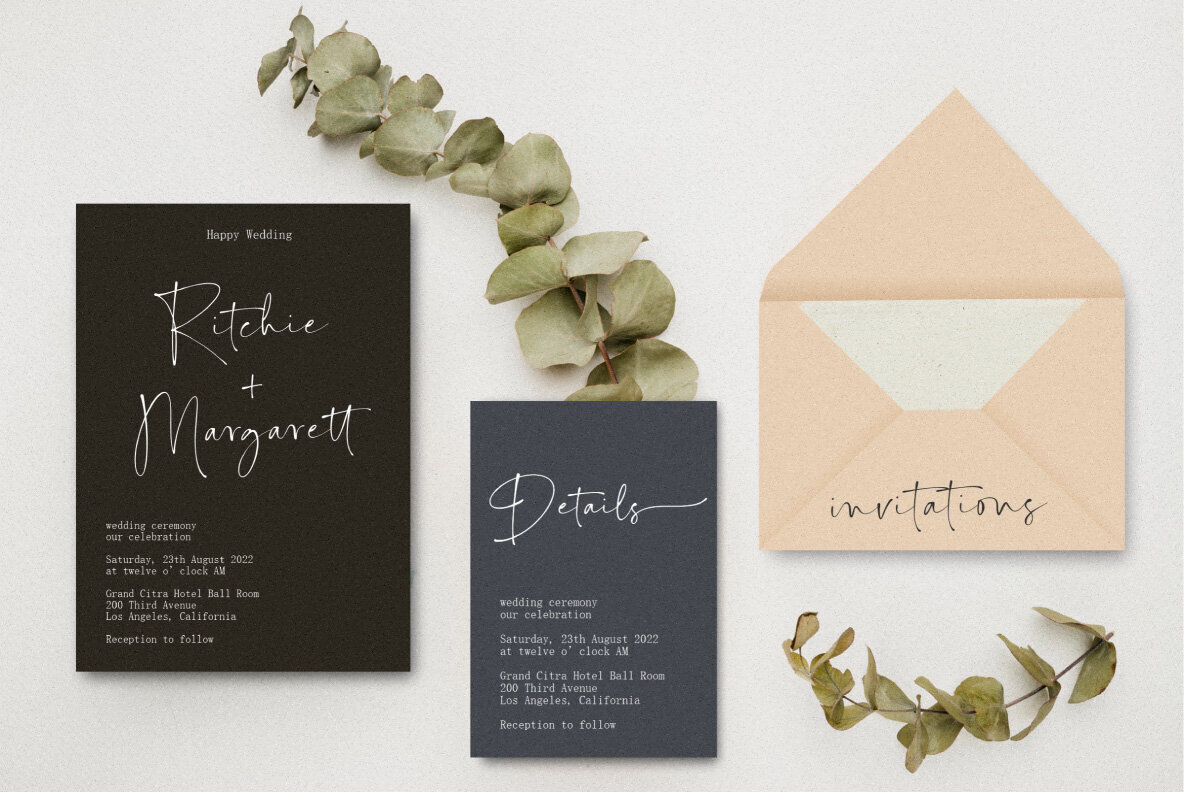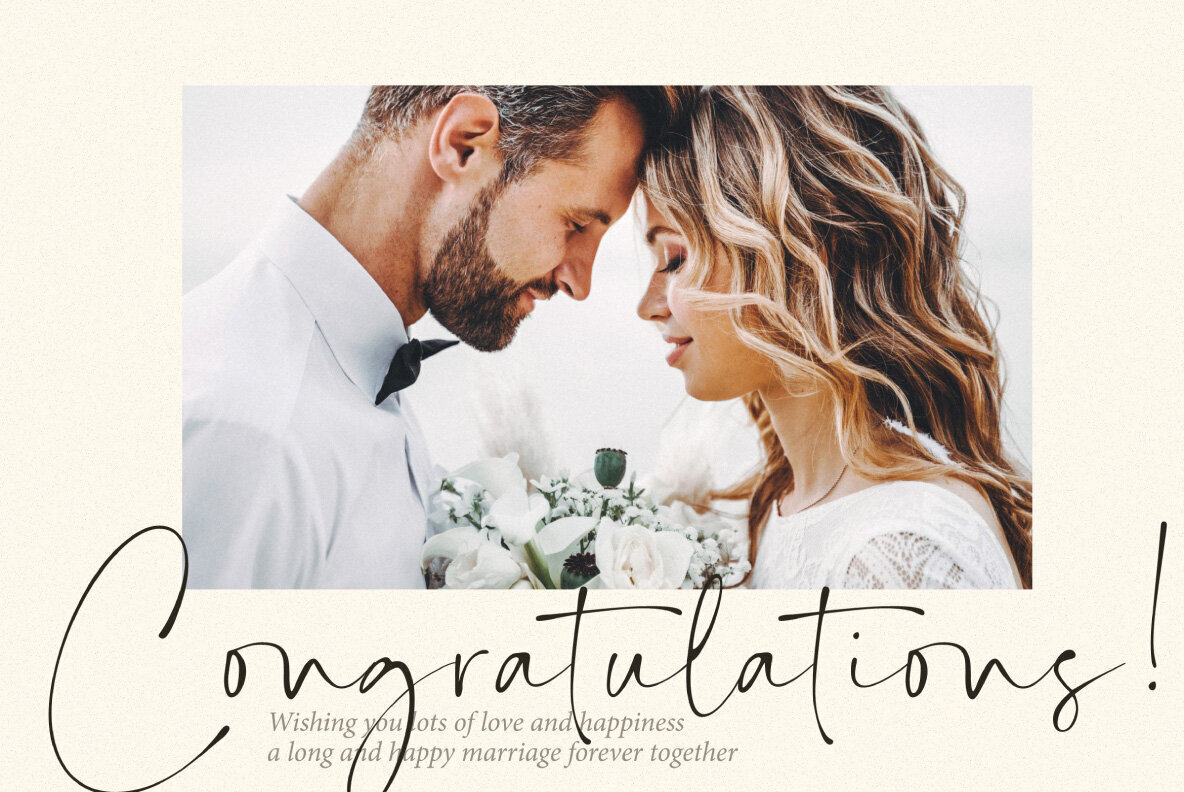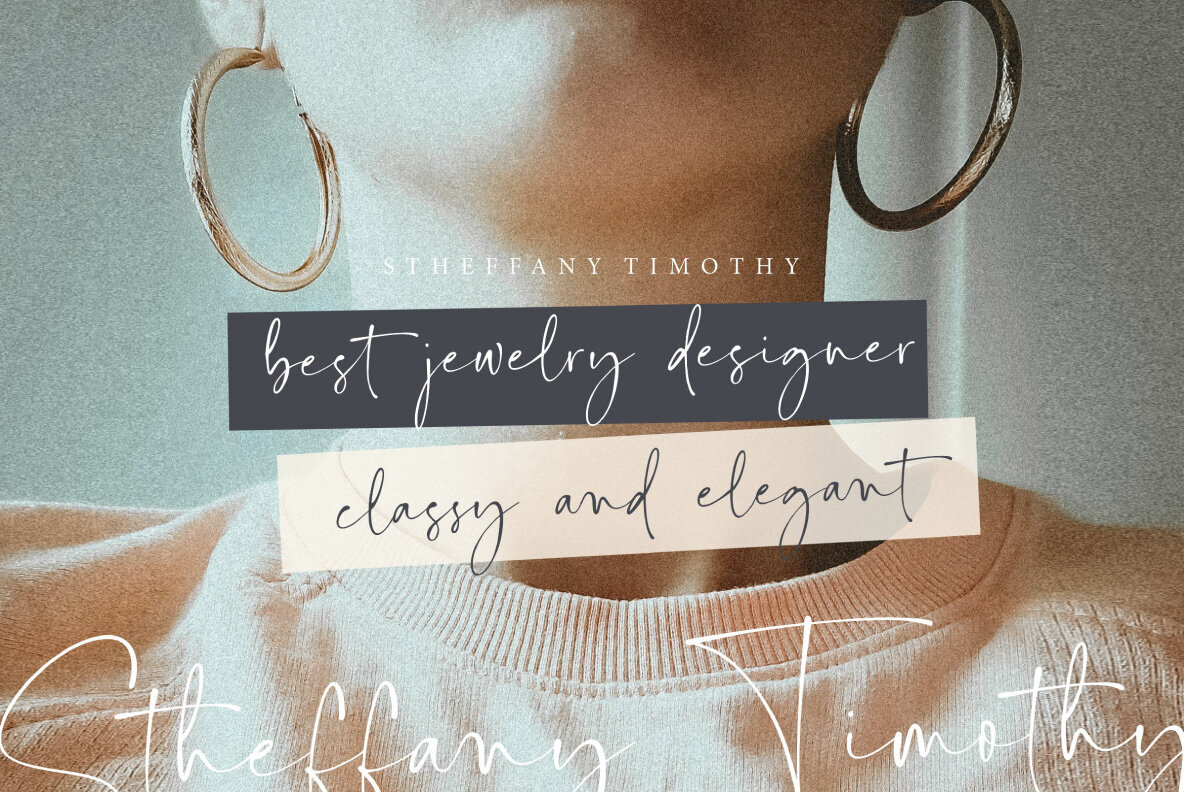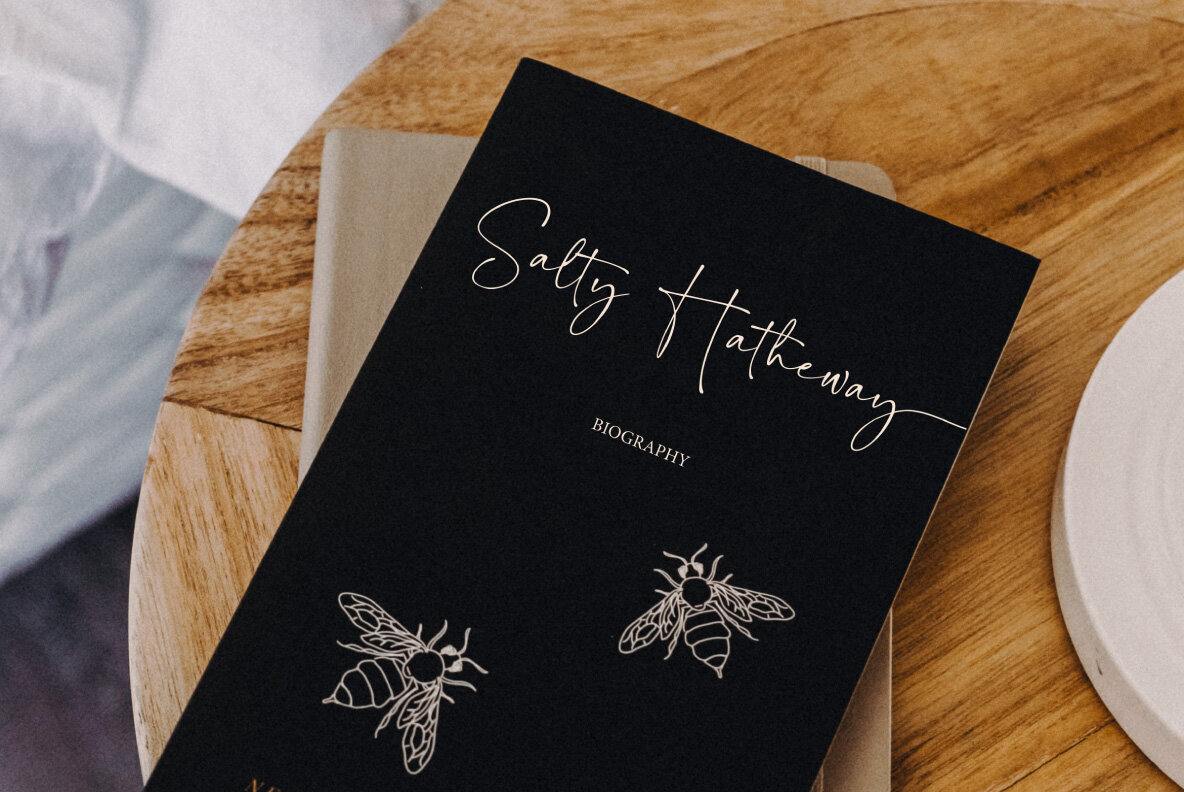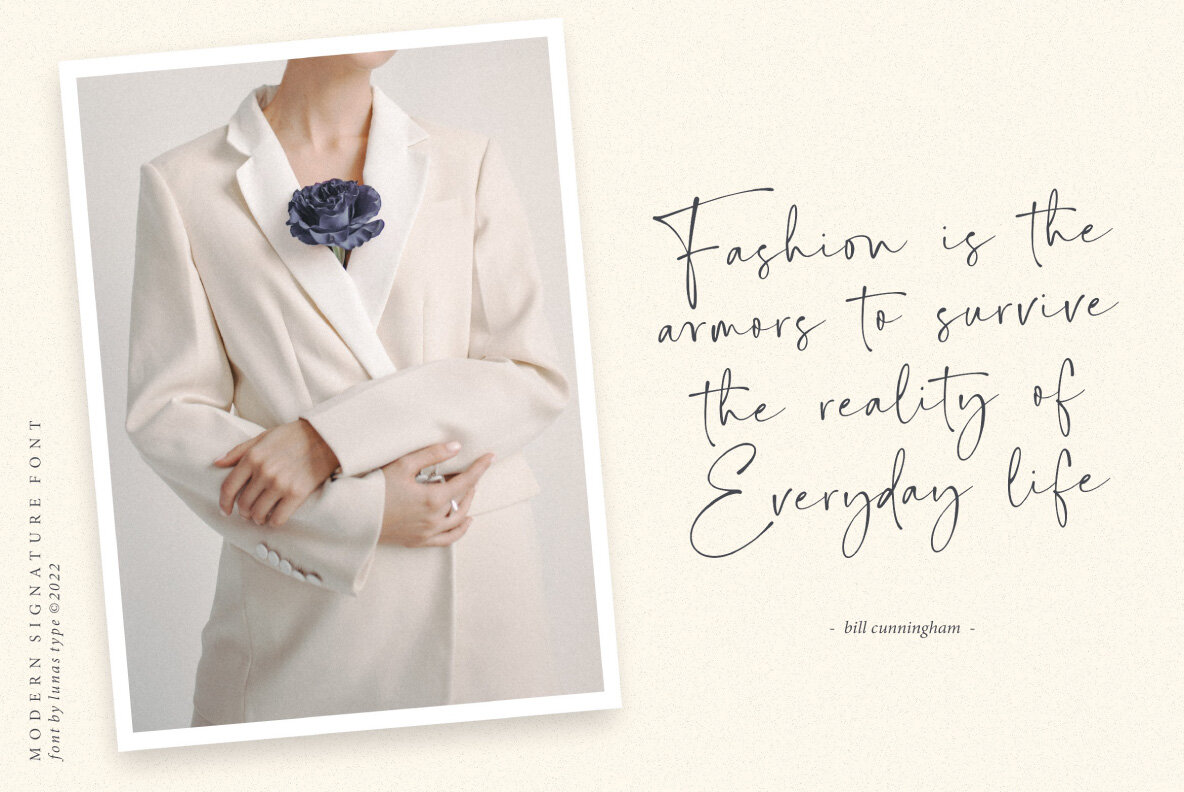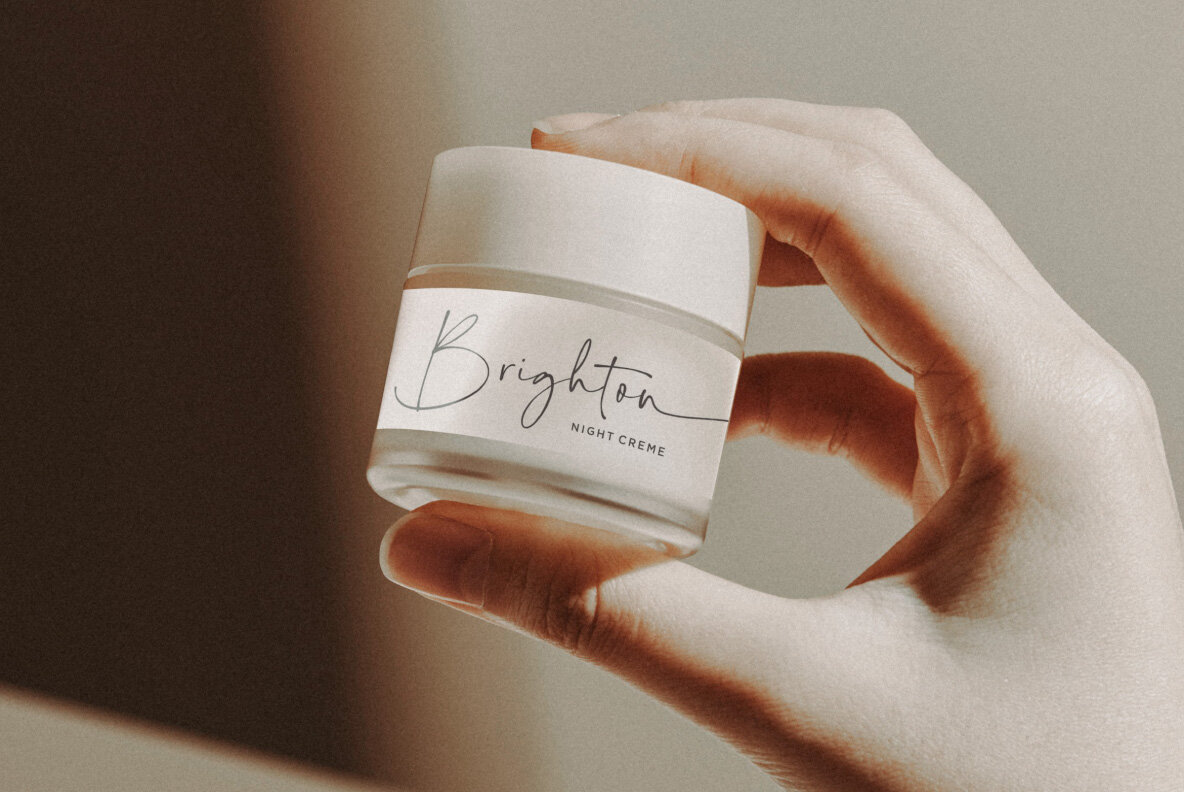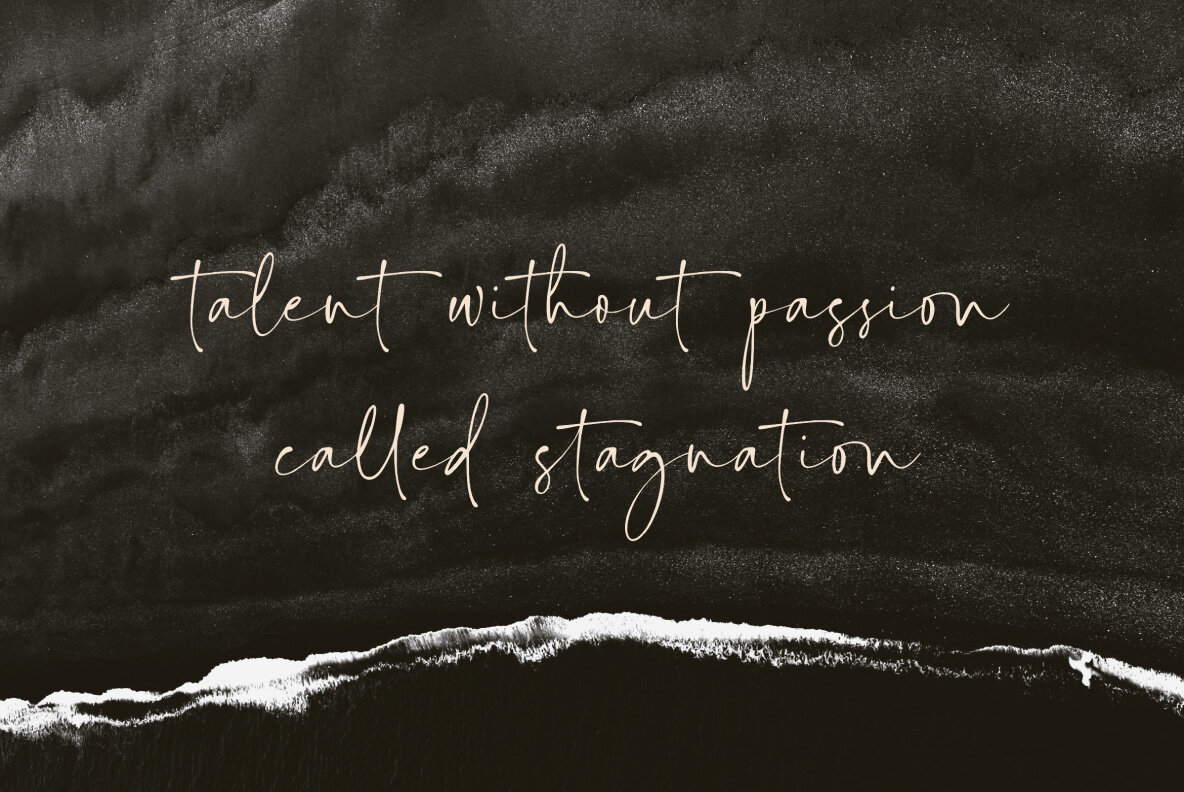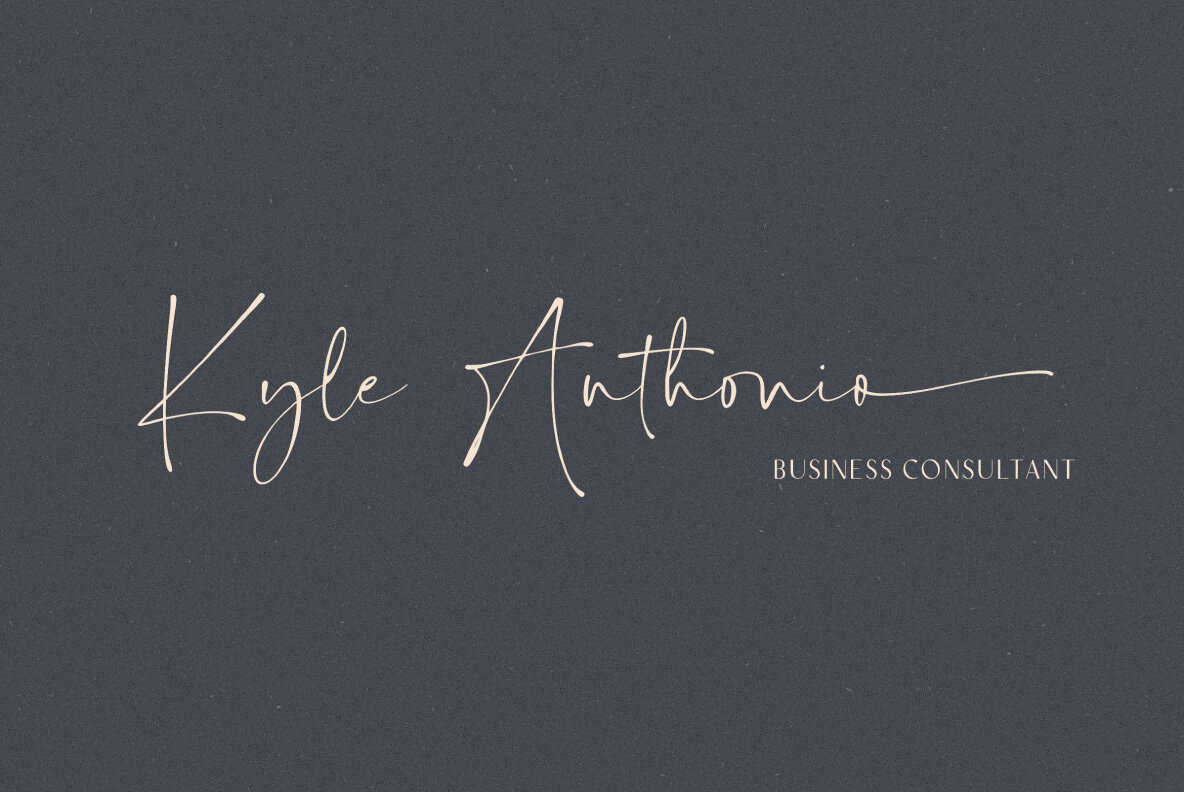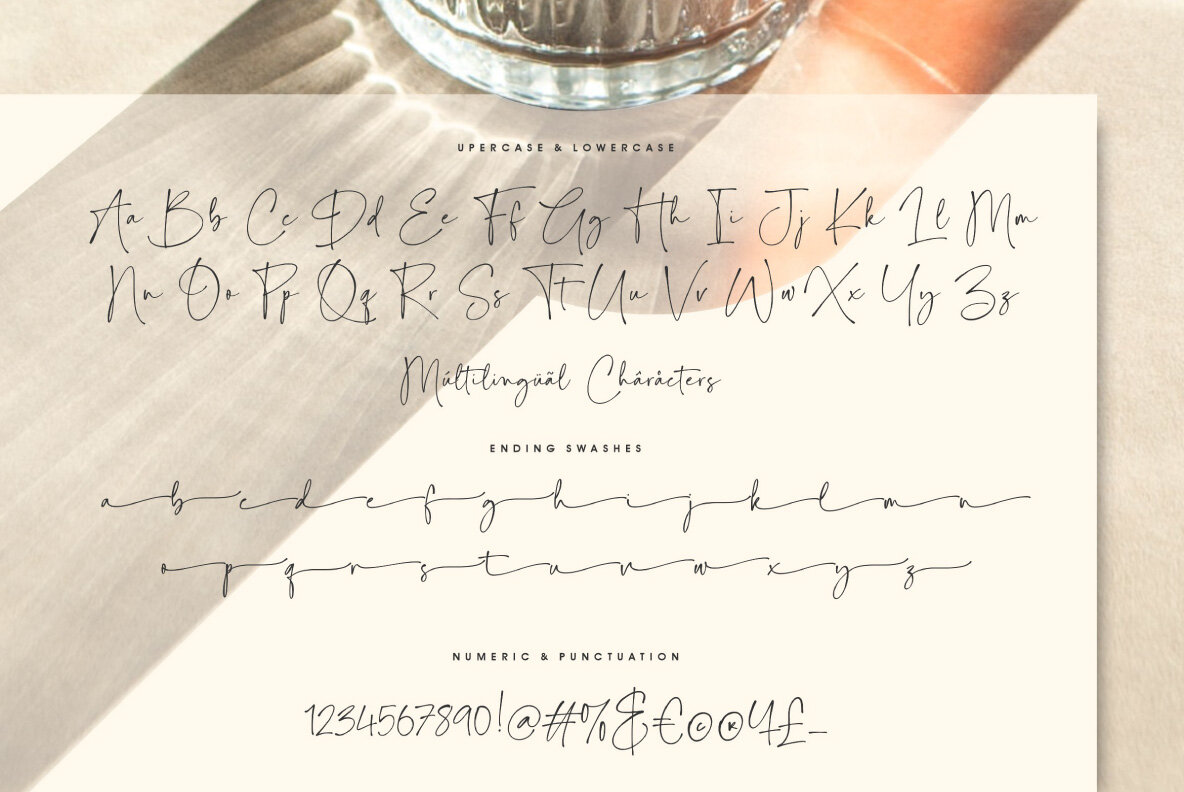
Celestine Font
Celestine Regular
Celestine is modern and stylish, with swashes that add character. You can either use them by typing "-" at the end of letters or access them through the alternates option to show all available styles including punctuation marks like periods, commas etc., numeral symbol (e) and much more!
- Ending Swashes
- Numeral & Punctuation.
- Ligature.
- Multilingual Support.